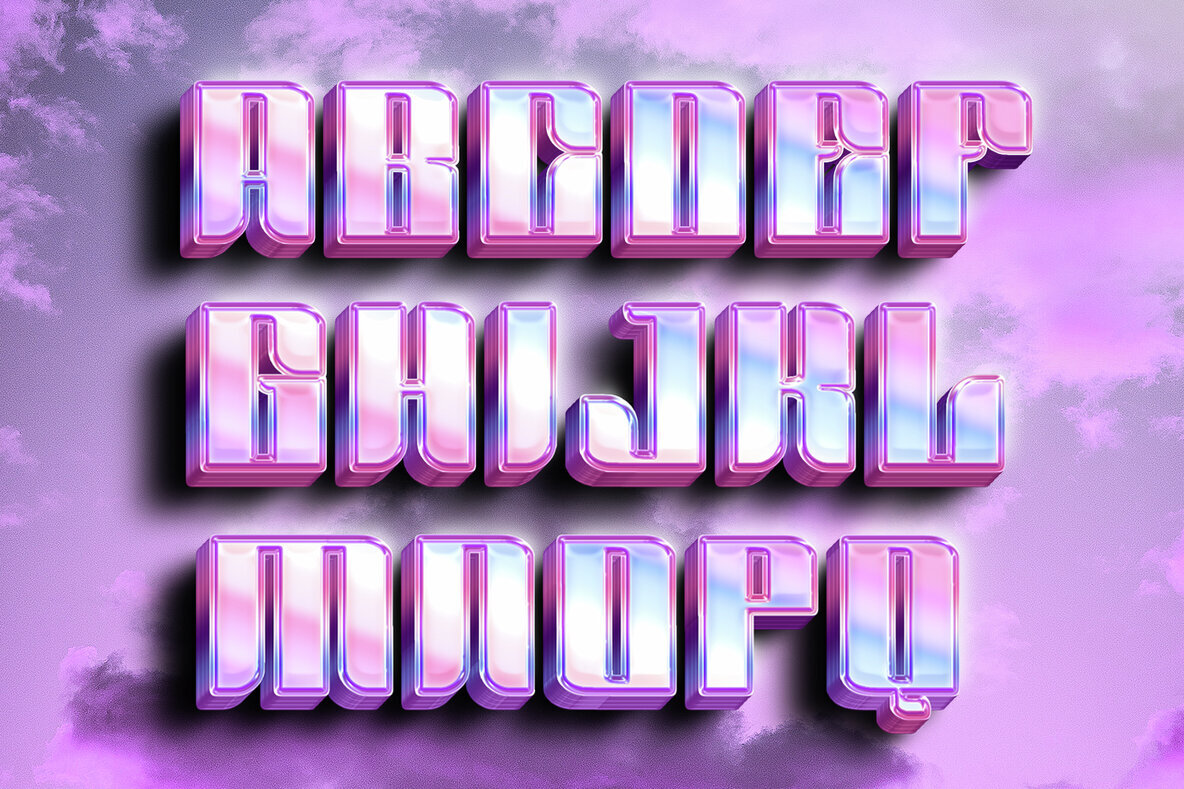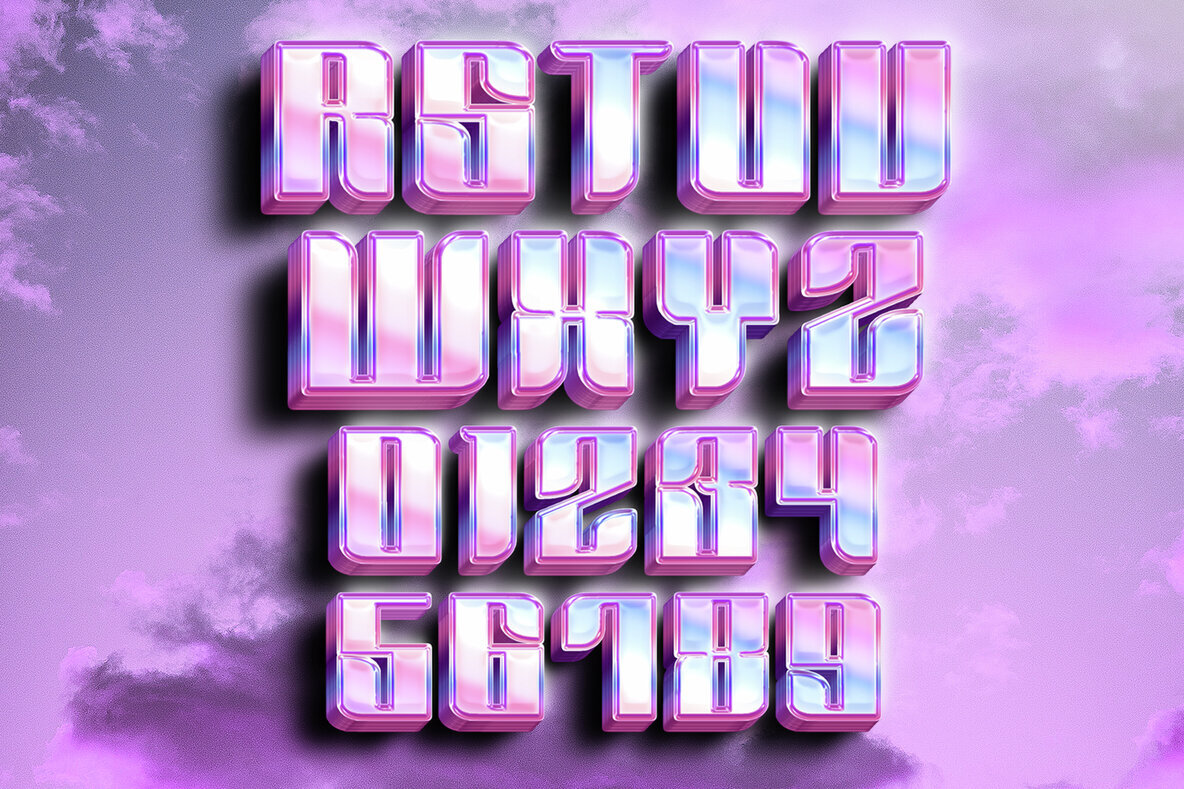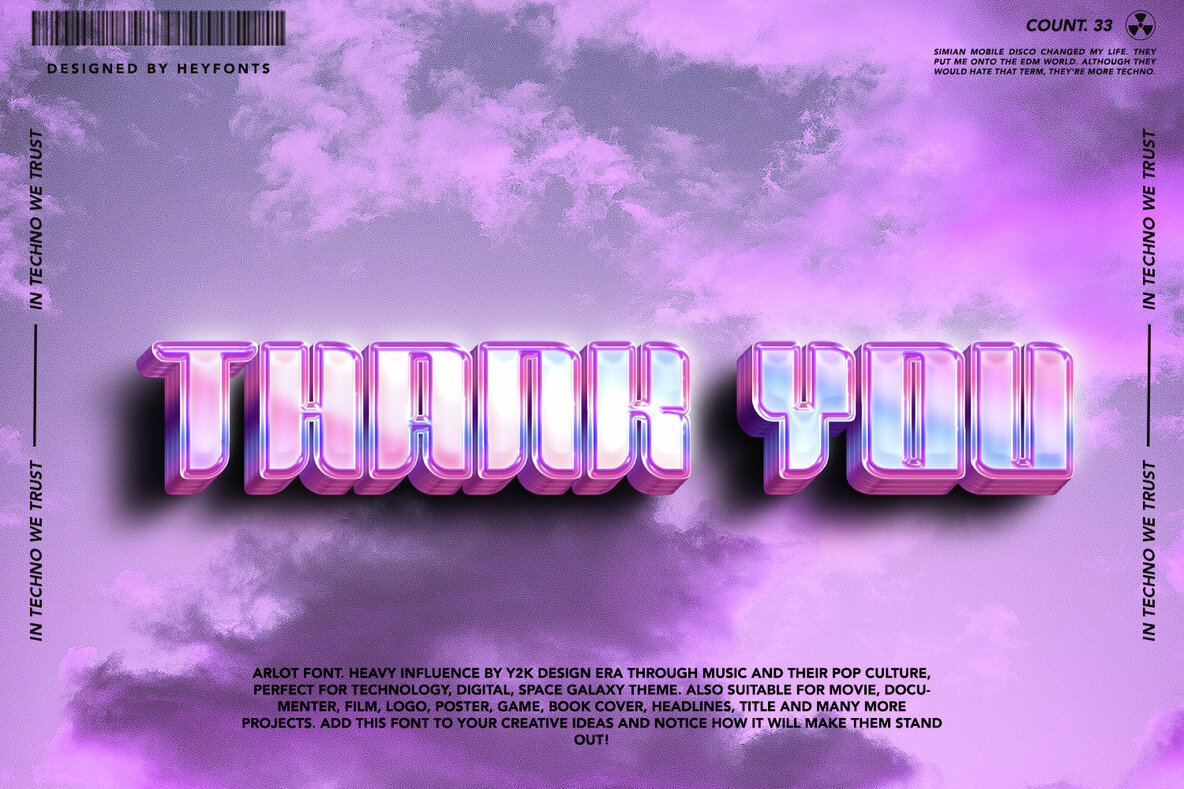
Arlot Y2k Font, inspired by the turn of the millennium aesthetic, offer a nostalgic and futuristic vibe reminiscent of the early 2000s. Here's a brief explanation of the features and functions of Y2K Fonts: Features: Functions: